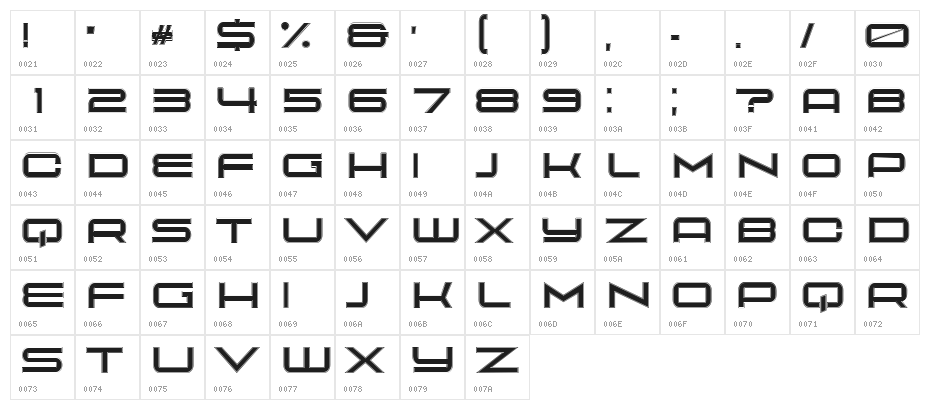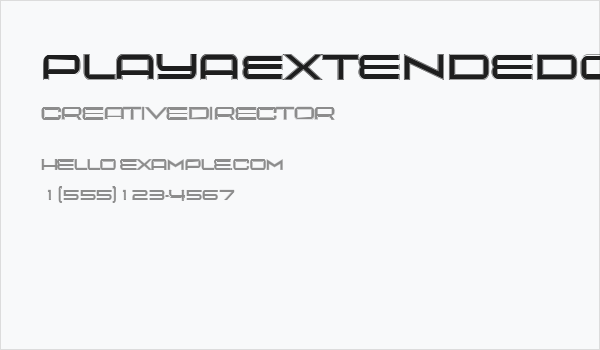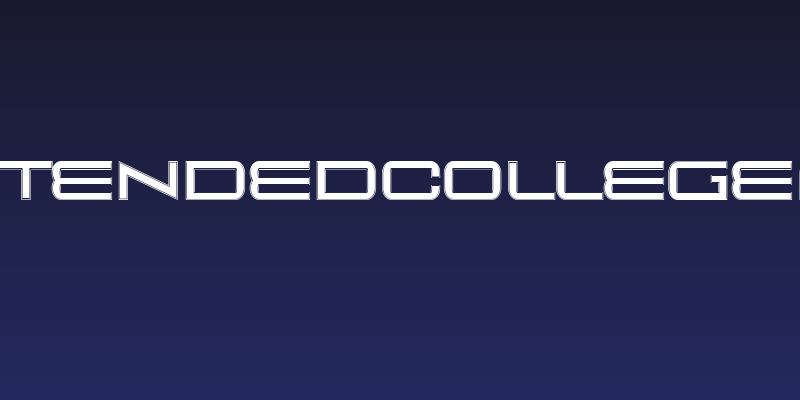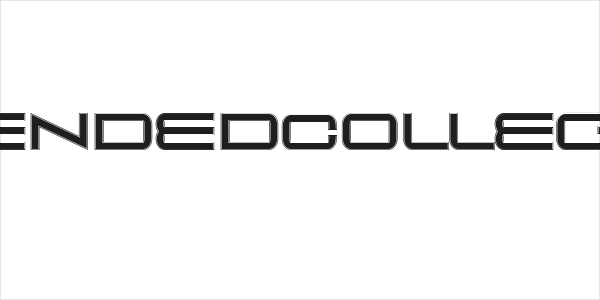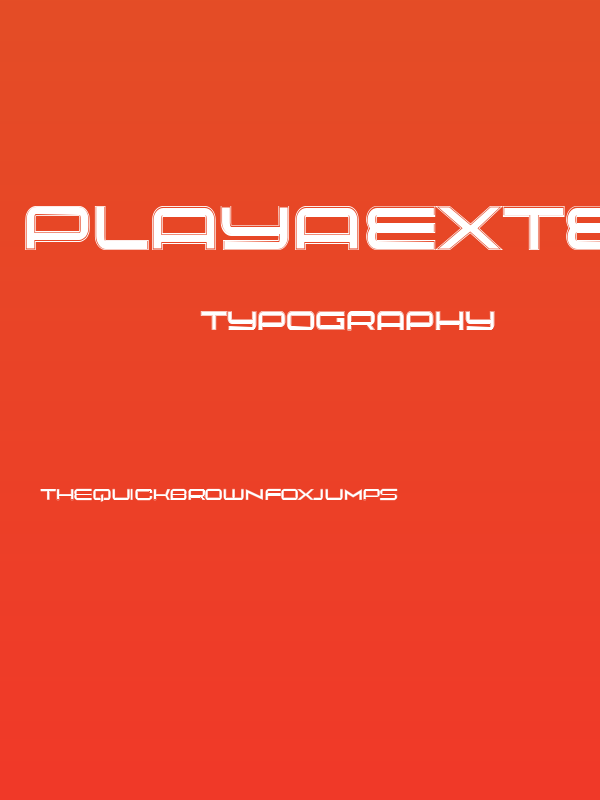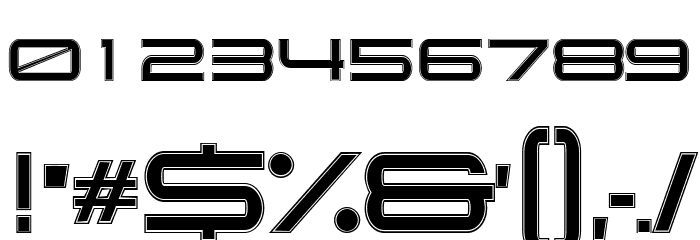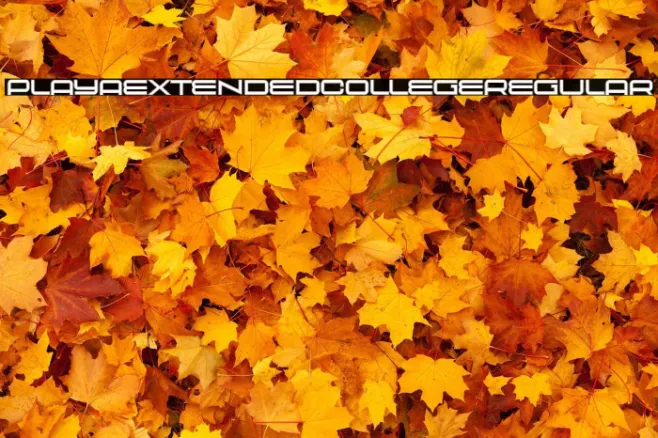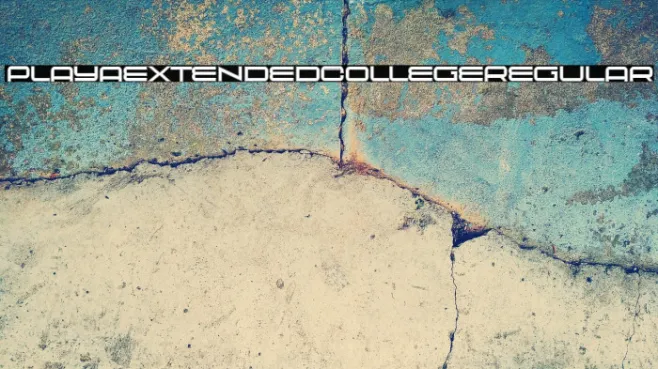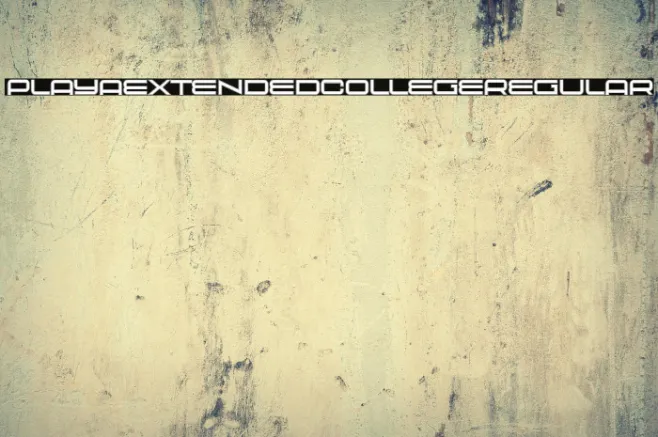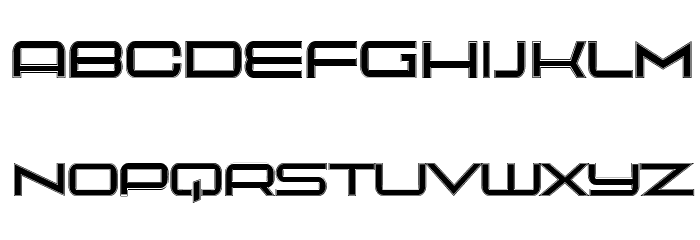
Playa Extended College Regular Font
Playa Extended College Regular Description
This font features a bold, geometric design with a modern and futuristic aesthetic. The characters are constructed with clean, straight lines and sharp angles, giving it a technical and structured appearance. The uppercase and lowercase letters maintain a consistent style, with a uniform height that enhances readability. The numerals and special characters are designed to match the overall theme, providing a cohesive look across all glyphs. This font's extended width and unique style make it stand out, ideal for projects that require a strong visual impact.
| Proposed Projects | Ideal for technology branding, sports team logos, video game titles, and sci-fi themed designs. |